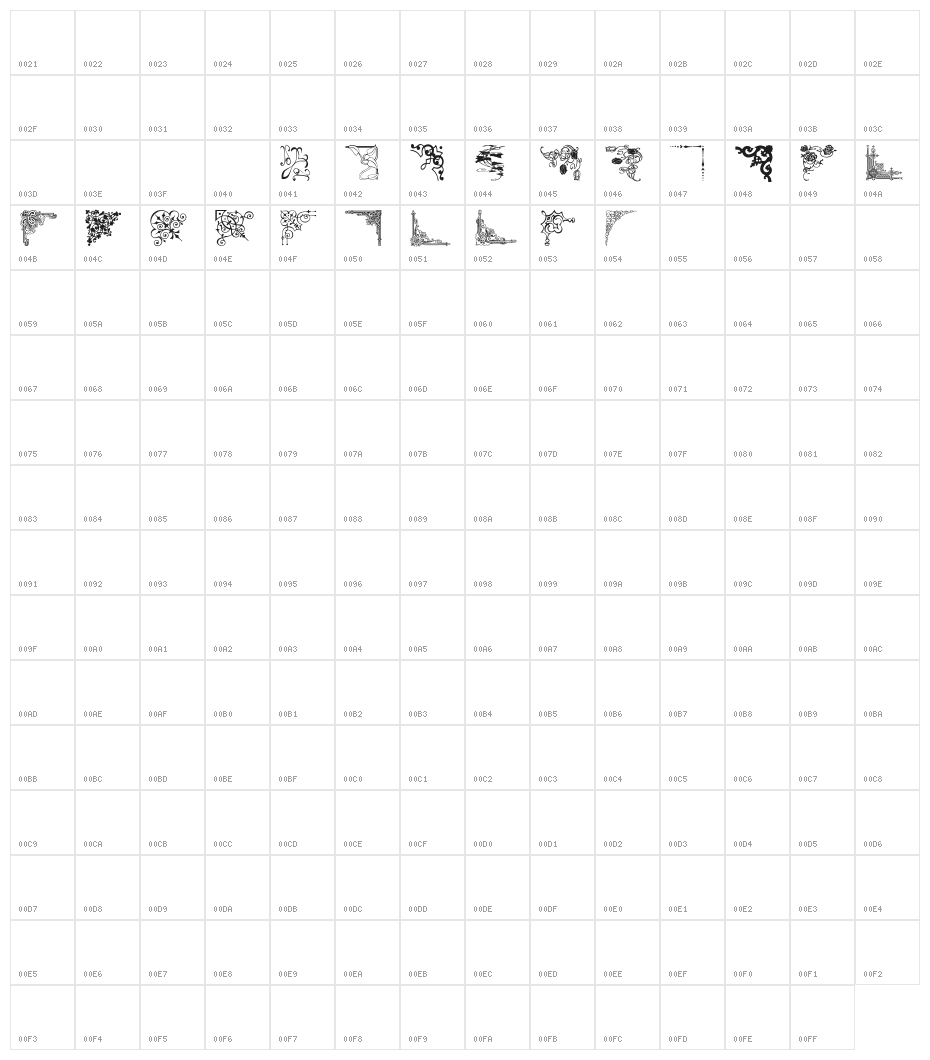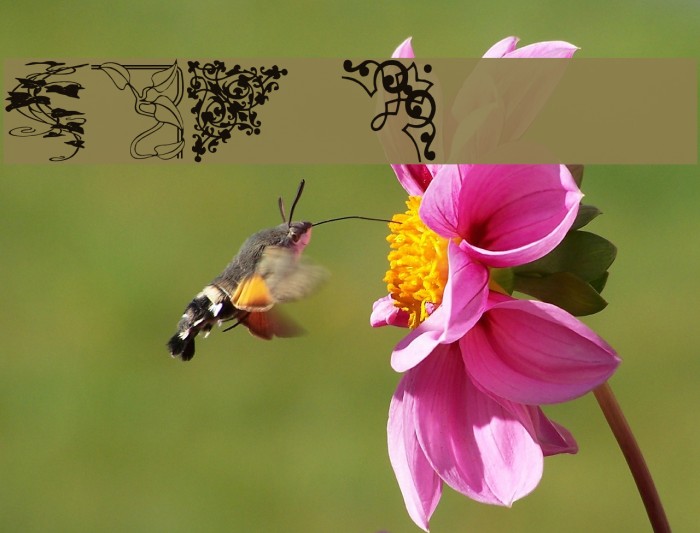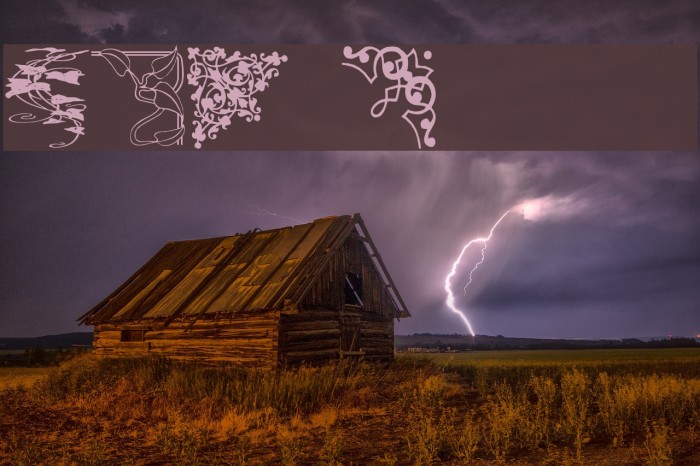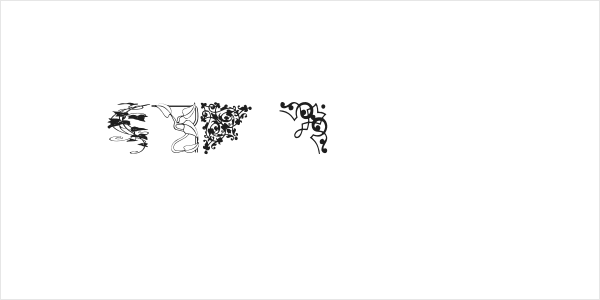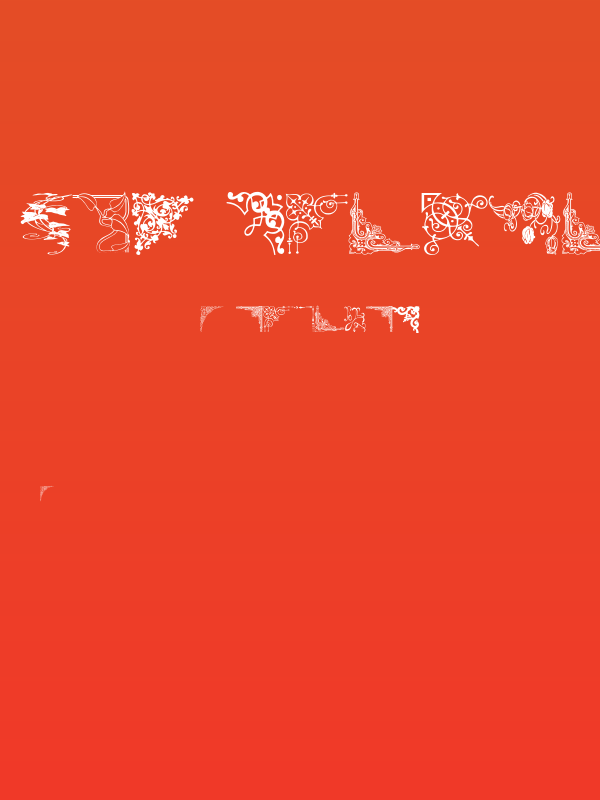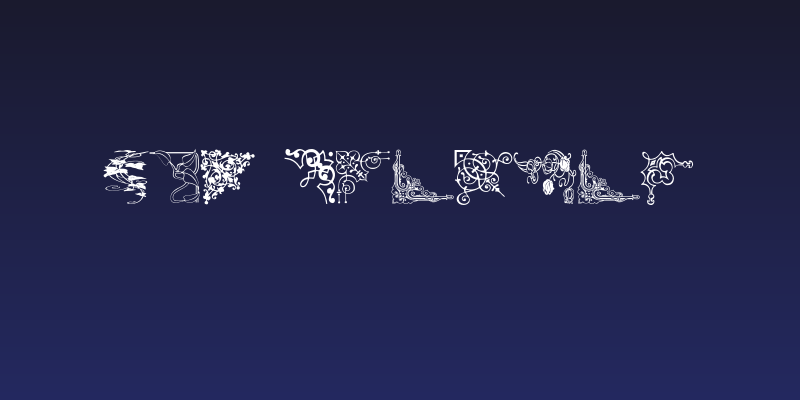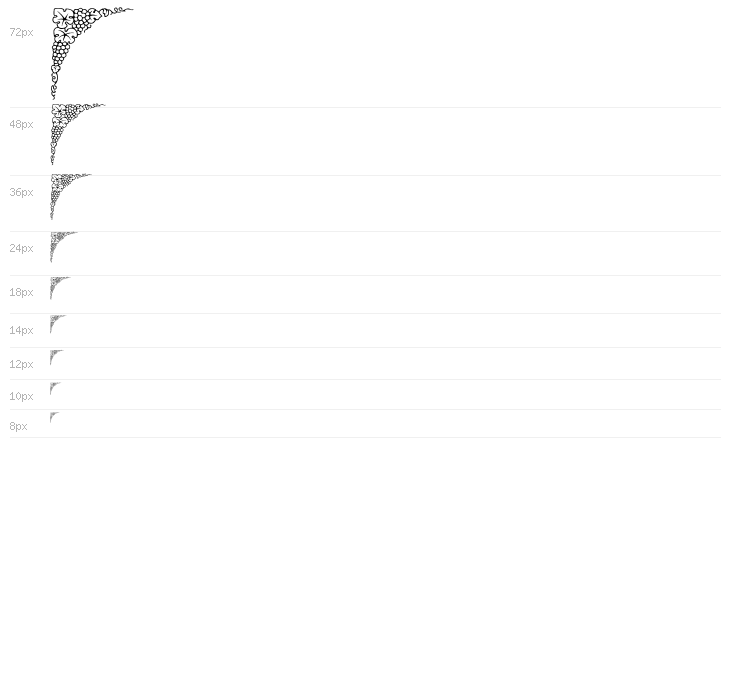
DBL Corners Font
DBL Corners Description
This decorative font is characterized by its intricate and ornate corner designs, reminiscent of vintage or classical embellishments. Each letter is adorned with elaborate flourishes and embellishments, giving it a highly decorative and artistic appearance. The design elements are reminiscent of antique manuscripts or decorative borders, making it suitable for projects that require a touch of elegance and sophistication. The font's unique style is perfect for creating a sense of grandeur and historical charm.
| Proposed Projects | Ideal for wedding invitations, vintage-themed posters, decorative certificates, and artistic projects requiring a classical touch. |